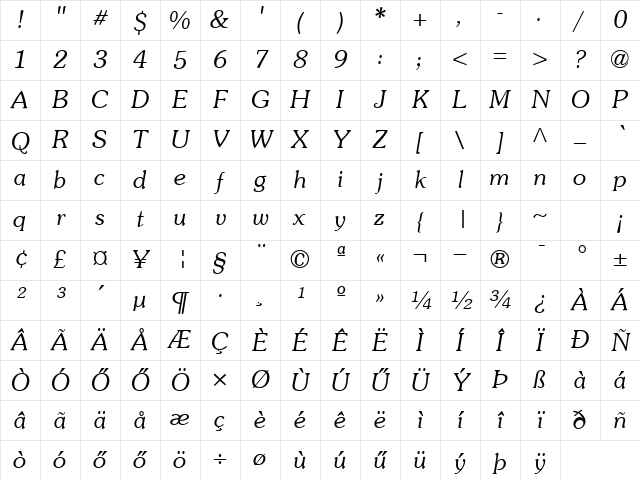
HSouvenir is a composed and adaptable typeface that performs quietly and consistently across a wide range of design contexts. The slanted form adds forward momentum and visual energy.